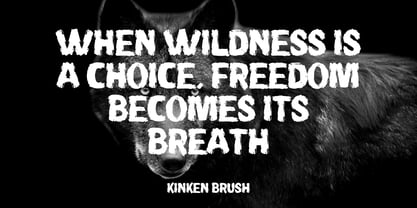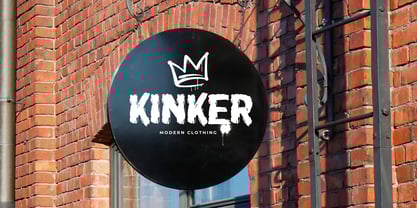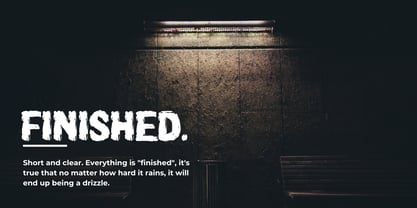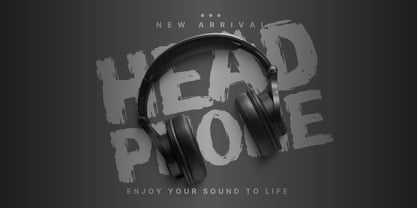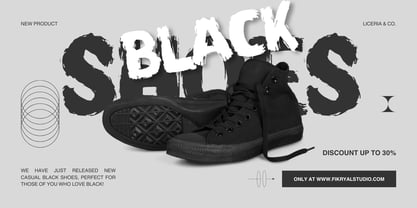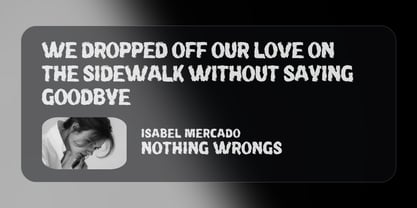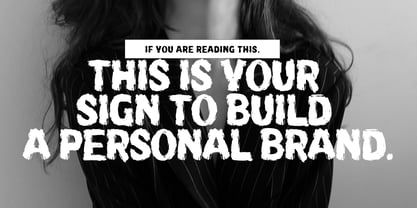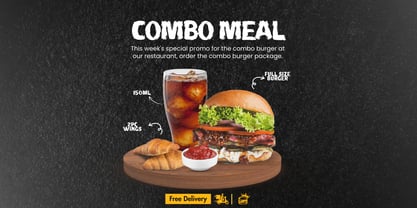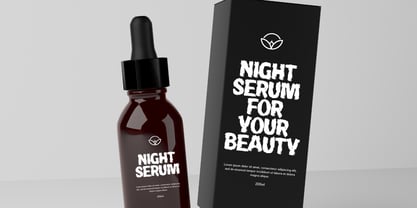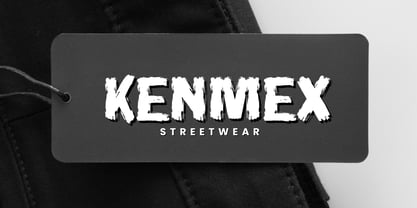
Kinken
by Fikryal
The Kinken Font Family was designed by Muhammad Fikry and published by Fikryal. Kinken contains 1 styles. More about this family
Kinken – Brush Display Font is a naturally crafted, all-caps brush font that exudes authenticity and boldness.
Its raw, dynamic strokes make it ideal for projects that demand a natural and expressive design.
Perfect for branding, posters, packaging, and other creative endeavors, Kinken adds a unique organic touch to any visual work.
Designers: Muhammad Fikry
Foundry: Fikryal